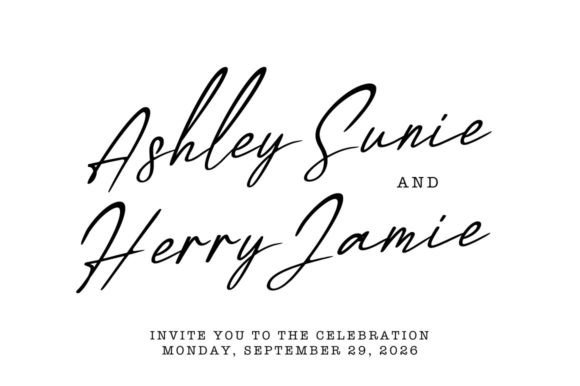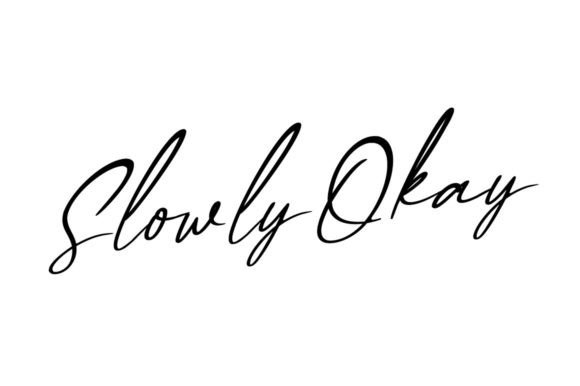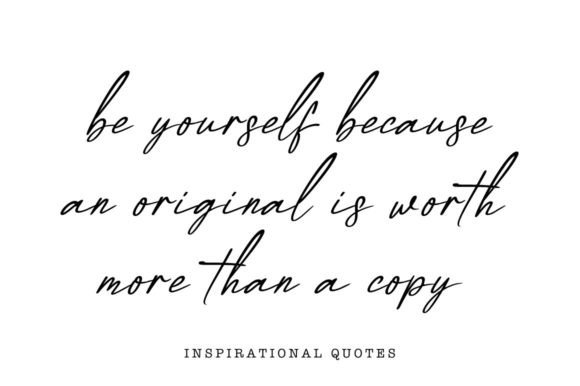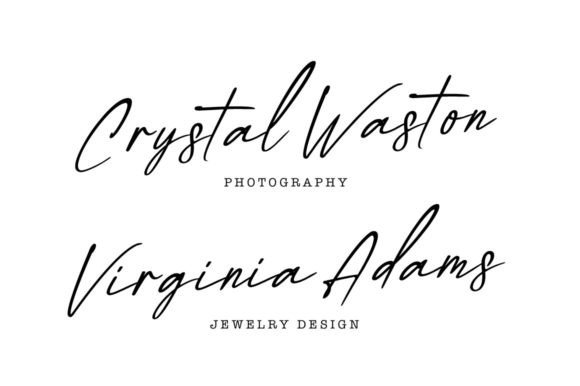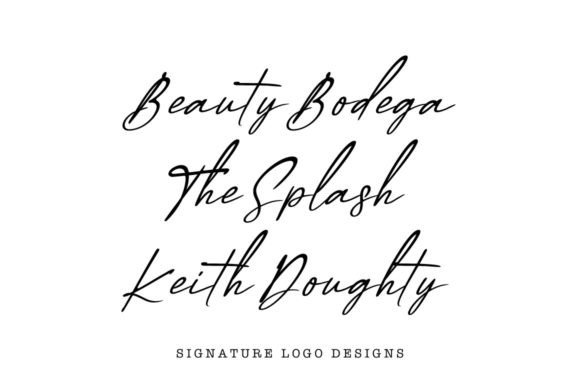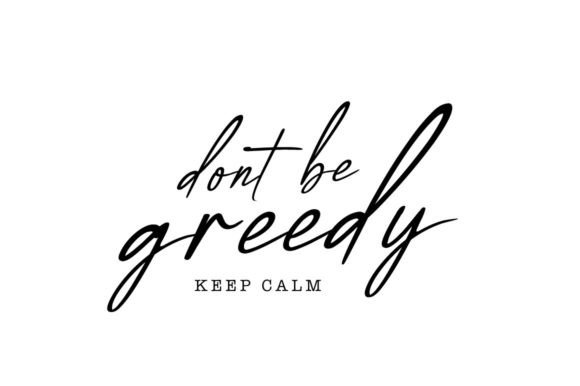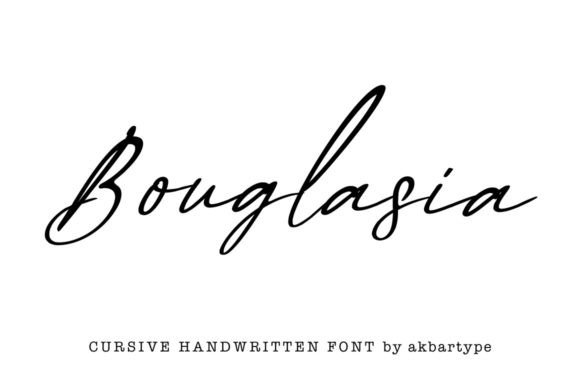
The Bouglasia Font: A Designer’s New Best Friend
It was love at first sight! This gorgeous, simple handwritten script font had everything I was looking for: contemporary flair, elegance, and legibility. I knew right then and there that Bouglasia was going to be a game-changer for my design projects.
- ✨ Elegant and sophisticated, perfect for high-end branding projects
- ✅ Versatile and adaptable to various design contexts
- ✨ Beautifully crafted with attention to detail
While Bouglasia is an amazing font, there are a few things to keep in mind: 🤔
- ⚠️ Some characters may not work well in all languages or scripts
- ⚠️ Limited availability of certain OpenType features
- Experiment with OpenType features like ligatures and stylistic alternates to add some extra flair to your design
The Story Behind Bouglasia
Bouglasia was designed with the intention of creating a beautiful, elegant script font that would be both modern and timeless. The designer, inspired by the art of handwriting and calligraphy, crafted Bouglasia to be a versatile and adaptable font that would excel in a wide range of design contexts.
| Font Name | Bouglasia Font |
| Author | Akbartype |
Q: What is Bouglasia font?
A: Bouglasia is a gorgeous and simple handwritten script font, perfect for elegant and modern design projects.
Q: Does Bouglasia support OpenType features?
A: Yes, Bouglasia supports some OpenType features like ligatures and stylistic alternates, but the availability of features may vary depending on the design platform or software.